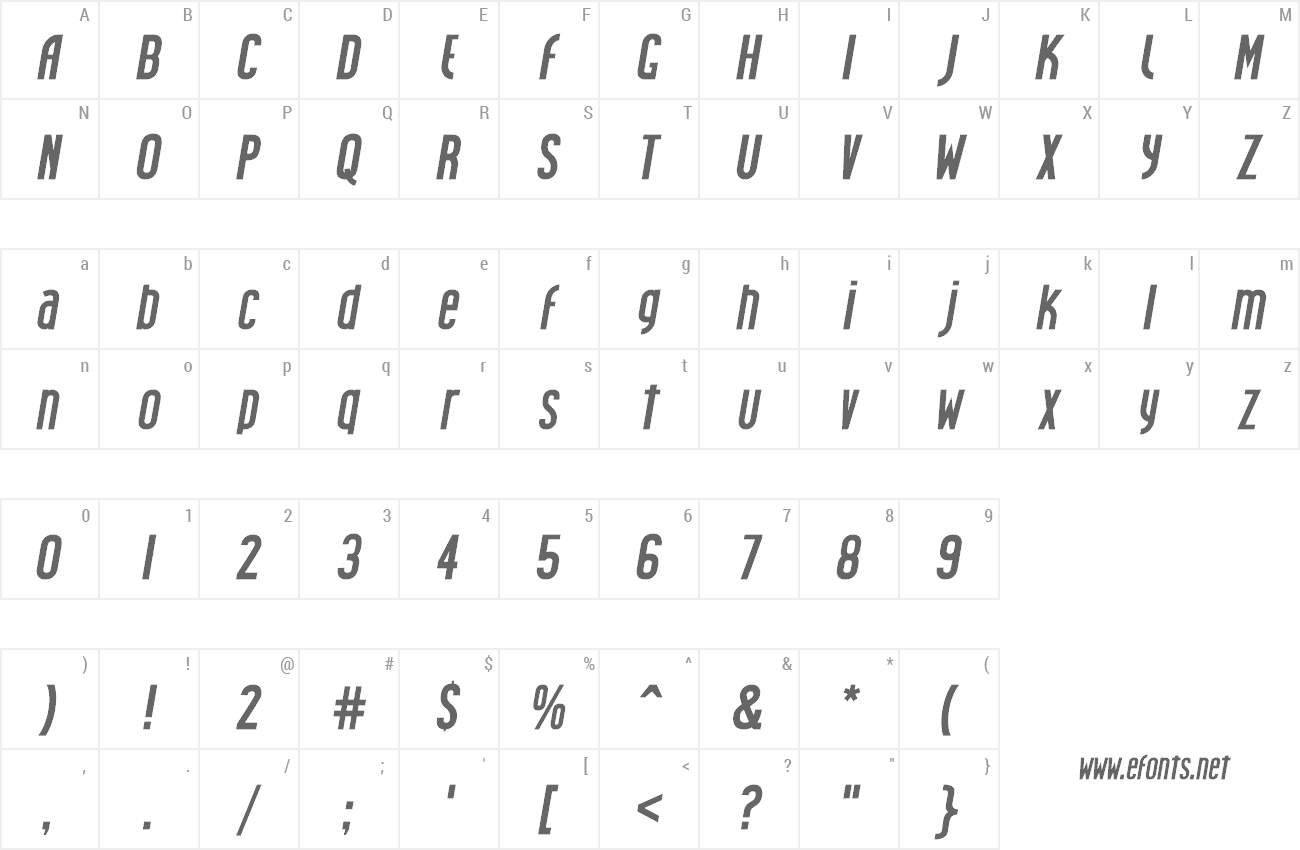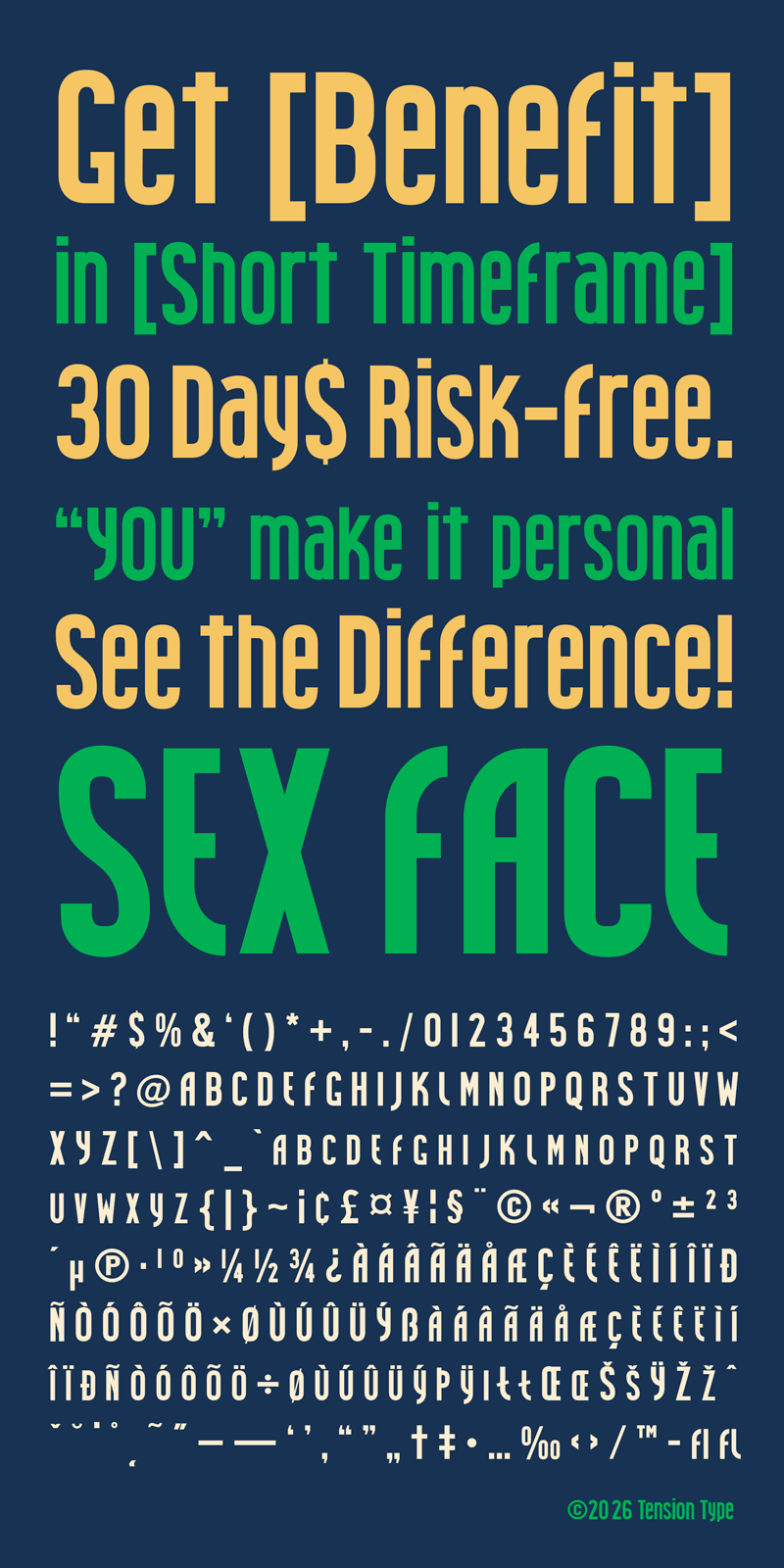
Free download Sex Face Font
Preview and download Sex Face Font. Created by Tension Type in Basic Sans serif styles with Free for personal use license.
| Font name: | Sex Face |
| Author: | Tension Type |
| My second design of a sans serif font. I like condensed type a lot, so that�s what I did. Good for headlines, posters, logos or anything large. Not ideal as a body copy typeface :) |